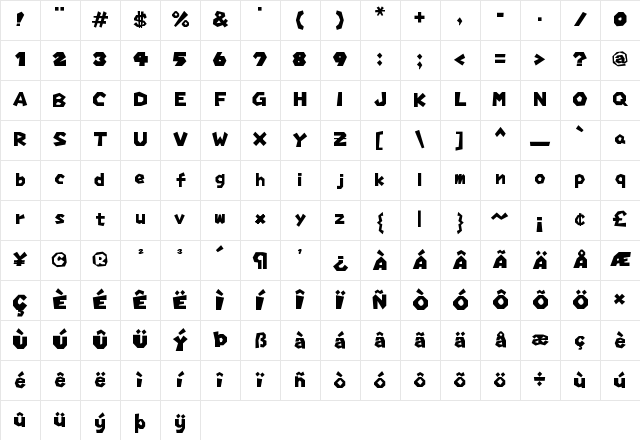
Mario Party Hudson Regular
Design Context for Mario Party Hudson
Mario Party Hudson is a composed and adaptable typeface that performs quietly and consistently across a wide range of design contexts.